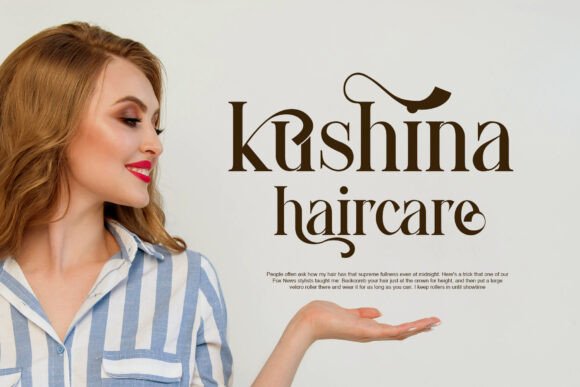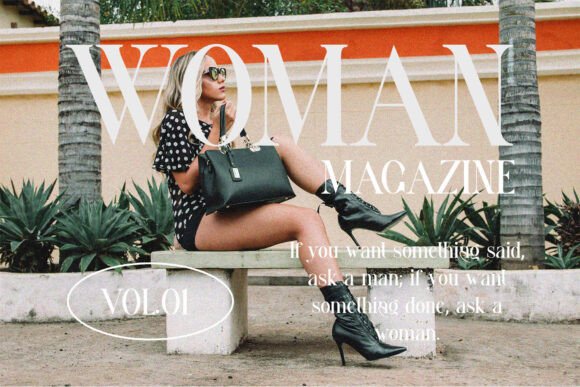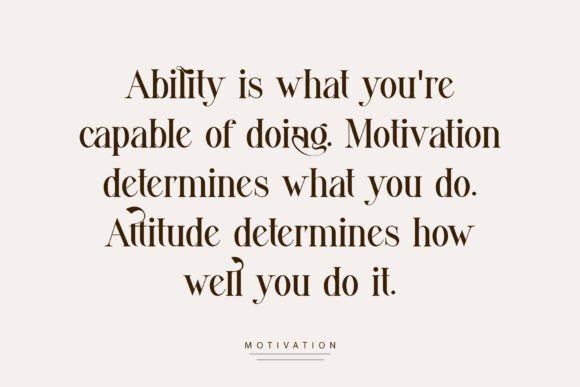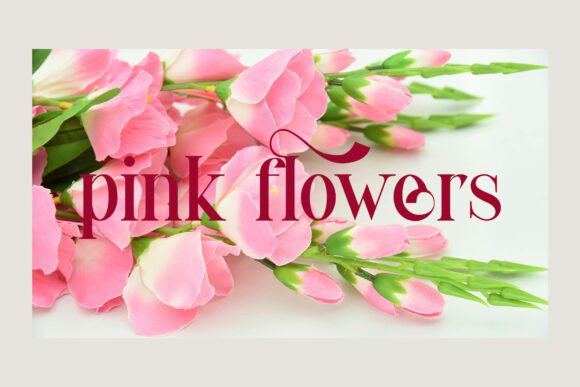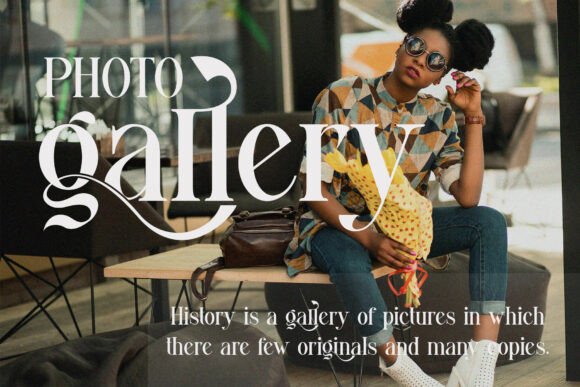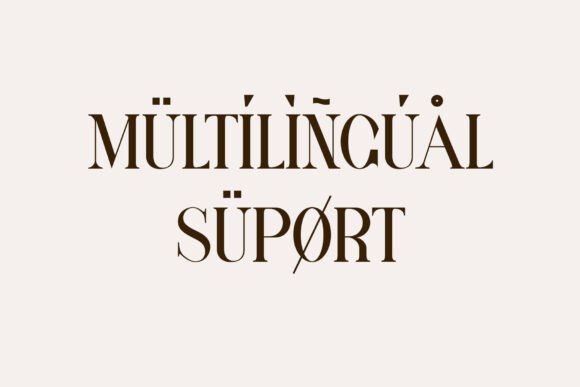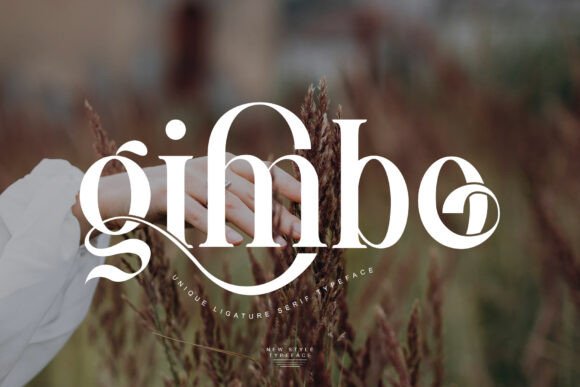
Gimbo Font: Elevate Your Designs with Elegance and Class
In the world of typography, finding the perfect font can make all the difference in creating visually stunning designs. If you’re on the hunt for a typeface that exudes elegance, style, and modernity, look no further than the Gimbo Font. This beautiful serif font is a masterful blend of modern and nostalgic styles, making it an excellent choice for designers and crafters looking to add a touch of sophistication to their work.
The Characteristics of Gimbo Font
Gimbo is an elegant and classy serif typeface that boasts a unique blend of contemporary and vintage elements. Its carefully crafted design makes it perfect for a wide range of applications, including logos, magazines, social media, and more. The font’s classic serif features are updated with modern twists, resulting in a fresh and timeless look that will elevate your designs to new heights.
What Makes Gimbo Font So Special?
So, what sets Gimbo apart from other fonts? Here are just a few reasons why this typeface is a cut above the rest:
- Elegant and Classy: Gimbo’s sophisticated design makes it perfect for projects that require a touch of luxury and refinement.
- Modern and Nostalgic: The font’s blend of modern and vintage elements creates a unique look that’s both fresh and timeless.
- Pairing Ready: Gimbo is already paired and ready to use, making it easy to incorporate into your designs.
- Versatile: This font is suitable for a wide range of applications, from logos and magazines to social media and more.
Whether you’re a professional designer or a crafty DIY enthusiast, Gimbo Font is an excellent choice for anyone looking to add a touch of elegance and style to their work. The font’s versatility and ease of use make it perfect for:
- Logo Design: Gimbo’s classic serif features and modern twists make it an excellent choice for logos that require a touch of sophistication.
- Magazine and Newspaper Design: The font’s elegant design and readability make it perfect for magazine and newspaper layouts.
- Social Media Graphics: Gimbo’s modern and stylish look makes it an excellent choice for social media graphics, including Facebook posts, Instagram stories, and more.
Tips for Using Gimbo Font
To get the most out of Gimbo Font, here are a few tips to keep in mind:
- Experiment with Font Sizes: Gimbo looks great in a variety of font sizes, from large headings to smaller body text.
- Play with Line Spacing: Adjusting the line spacing can help create a sense of flow and rhythm in your text.
- Pair with Other Fonts: While Gimbo is beautiful on its own, it can also be paired with other fonts to create a unique and interesting look.
In conclusion, Gimbo Font is an elegant and classy serif typeface that’s perfect for designers and crafters looking to add a touch of sophistication to their work. Its unique blend of modern and nostalgic styles makes it versatile and suitable for a wide range of applications. Whether you’re creating logos, magazines, social media graphics, or more, Gimbo Font is an excellent choice. So why wait? Download Gimbo Font today and elevate your designs to new heights!